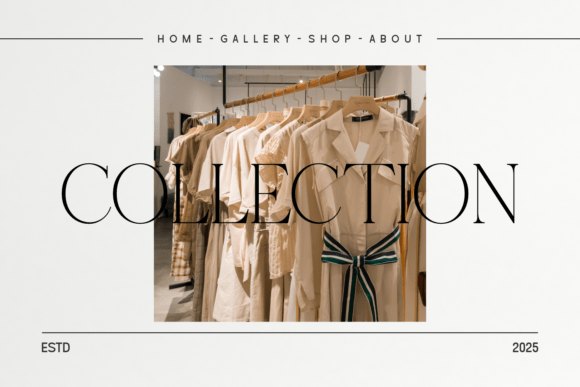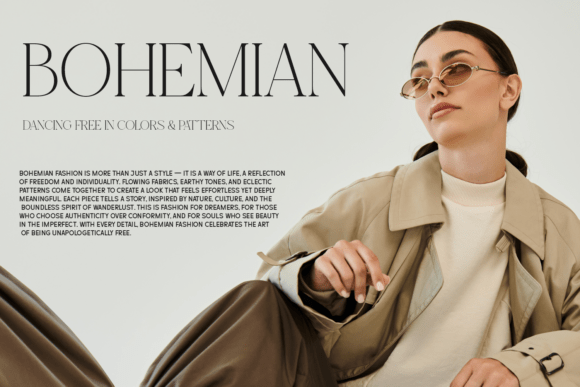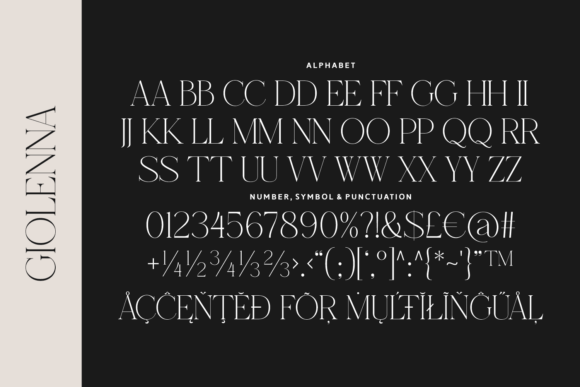
Introduction to Giolenna Font
Imagine you’re working on a high-end fashion campaign, and you need a font that exudes luxury and sophistication. You scroll through your design resources, searching for the perfect font to match your brand’s elegant vibe. Suddenly, you stumble upon Giolenna Font – a sleek and refined serif font that perfectly captures the essence of high-end style. Its tall proportions, fine lines, and minimalist design make it a standout choice for luxury branding, fashion editorials, and wedding invitations.
Giolenna Font is a game-changer for designers looking to elevate their creative projects. With its clean and stylish design, it’s versatile for both headlines and body text, making it an invaluable asset for any design resource. Plus, its high-quality design ensures that it looks great on any background, from transparent to solid colors. Whether you’re working on a free download or a paid project, Giolenna Font is sure to impress.
Key Features of Giolenna Font
- High-quality, elegant design suitable for creative projects and personal use.
- Includes a transparent background, allowing for seamless integration with various backgrounds and designs.
- Features a clear and legible font style with a unique touch, perfect for adding a personal touch to creative projects.
Honest Review: Giolenna Font
I recently stumbled upon the Giolenna Font and was excited to give it a try. This beautiful font is a great addition to any designer’s toolkit and can elevate your creative project to the next level.
What works well: ✨ The Giolenna Font is incredibly versatile and can be used for a variety of design applications, from elegant invitations to modern websites. The font’s unique style and high quality make it a standout choice for designers looking to add a touch of sophistication to their work. Additionally, the free download option is a major plus, making it an accessible resource for designers of all levels.
High-quality design
However, there are a few limitations to keep in mind: ⚠️ The Giolenna Font may not be suitable for all design applications, particularly those that require a more conservative or traditional look. Additionally, the font’s unique style may not be to everyone’s taste.
Overall, I’m impressed with the Giolenna Font and would recommend it to designers looking for a high-quality, versatile font to add to their design resource collection.
Giolenna Font
Tips for Getting the Most Out of Giolenna Font
Use the Giolenna Font in combination with other design resources to create a unique and creative design. Experiment with different font sizes, colors, and styles to get the most out of the font.
The Giolenna Font is perfect for various creative projects such as logos, brochures, business cards, and social media graphics. It’s also great for personal projects such as photography captions, quote graphics, and more.